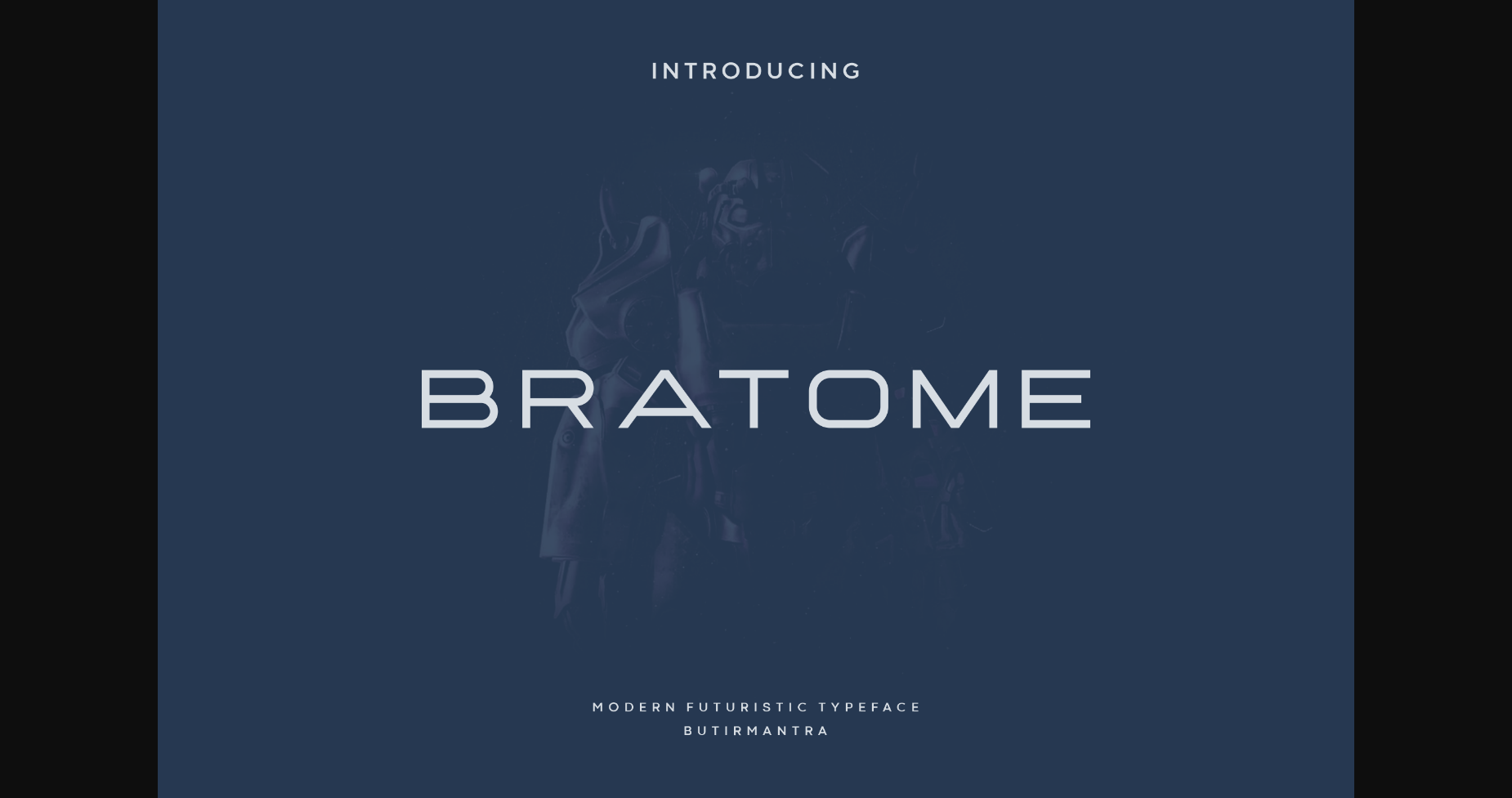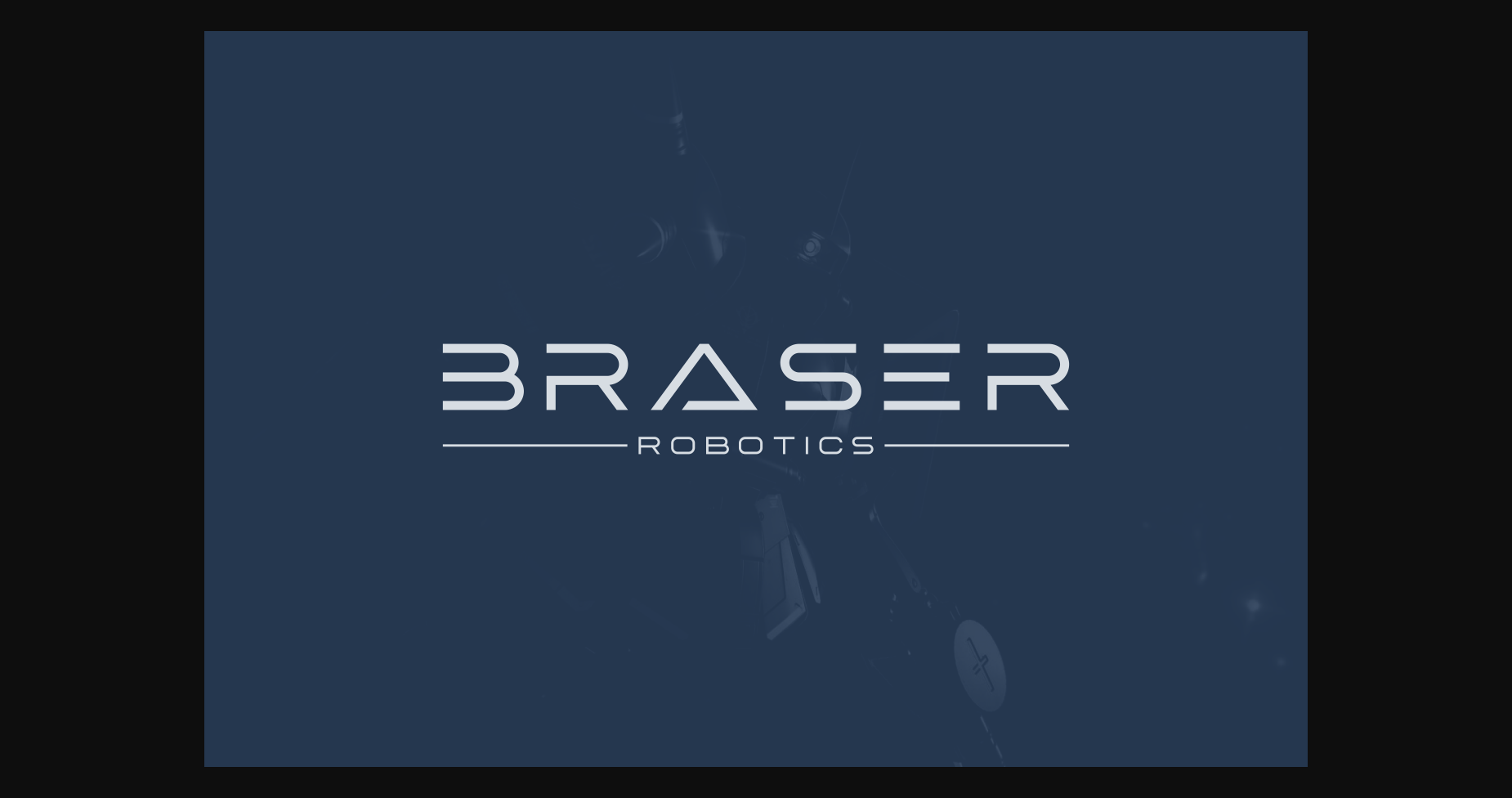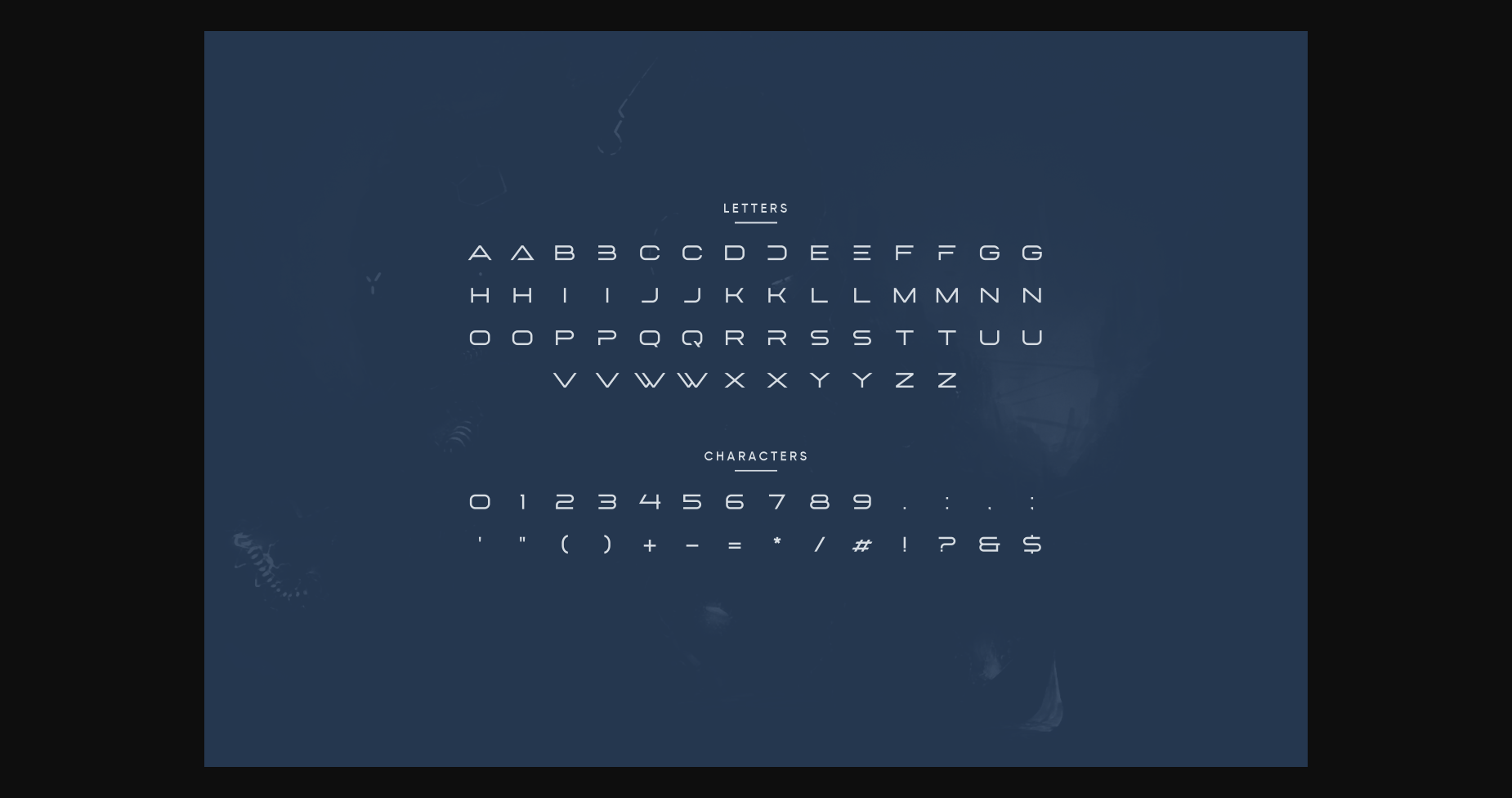
About Bratome Font
Bratome is a futuristic font, designed with an original touch for your needs. This cool font comes with all-caps, numeric & symbols. It is perfect for your logos, headlines, typography, posters, magazines, brochures, packaging, websites and so much more.